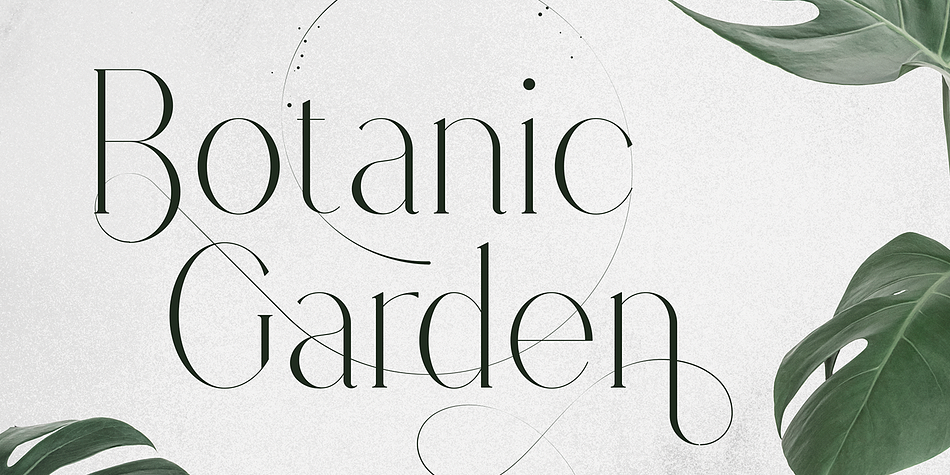
Stolen Love
Stolen Love is a serif and dingbat font family. This typeface has ten styles and was published by VPcreativeshop.
Introducing Stolen Love - Stylish serif typeface + Swashes and Ornaments
FEATURES
Uppercase, lowercase, numeral, punctuation & Symbol
Light, Regular, Bold, Extra Bold, Black and Rough Versions
52 swashes in three sizes ( small, medium, big )
26 ornaments
Character maps for swashes and ornaments
BGR support - special fonts with Bulgarian alphabet
ligature glyphs
alternates
Multilingual support - 95 languages